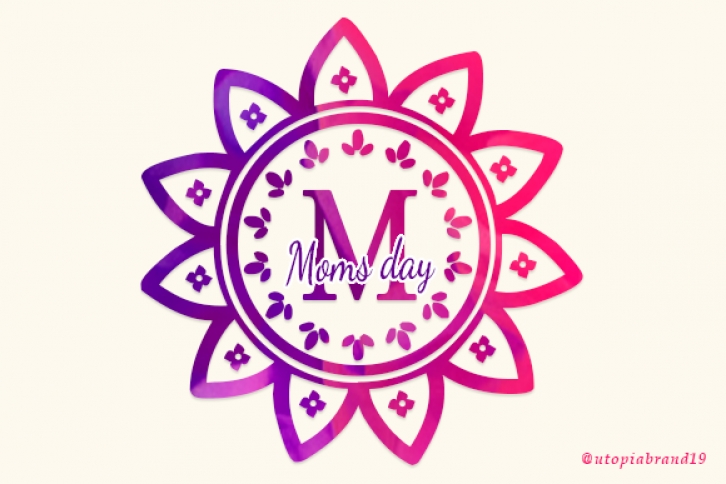
Moms day is a charming decorative font. Fall in love with its authentic feel and use it to create gorgeous wedding invitations, beautiful stationary art, eye-catching social media posts, and cute greeting cards.